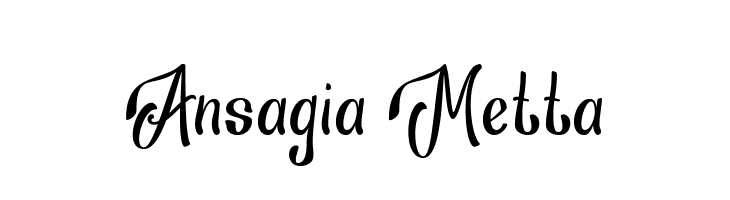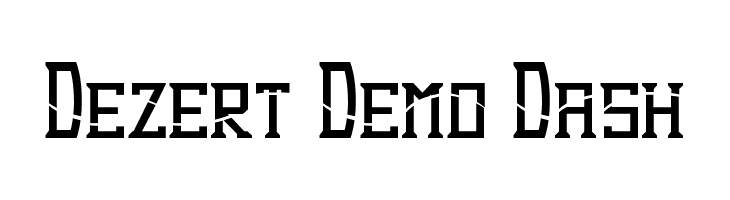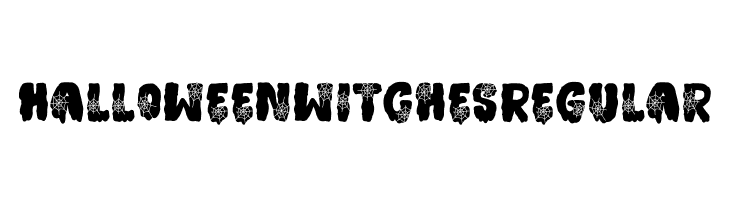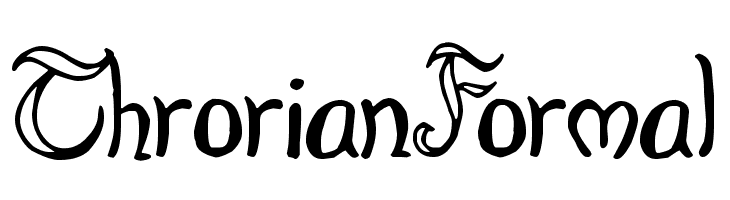
A decorative script font with elegant, flowing curves and ornate details.
A bold, italicized font with sharp angles and high contrast.
A playful and elegant script font with a handwritten style.
A classic serif font with high contrast and elegant strokes.
A graceful, cursive script font with elegant loops and swashes.
A bold, geometric font with sharp angles and high contrast, ideal for modern and industrial themes.
A lively and dynamic script font with elegant, flowing letterforms.
A spooky, dripping font with a haunting and eerie design.
A dynamic, brush-stroke style font with a rough, textured appearance.
A lively, cursive font with elegant, flowing strokes.